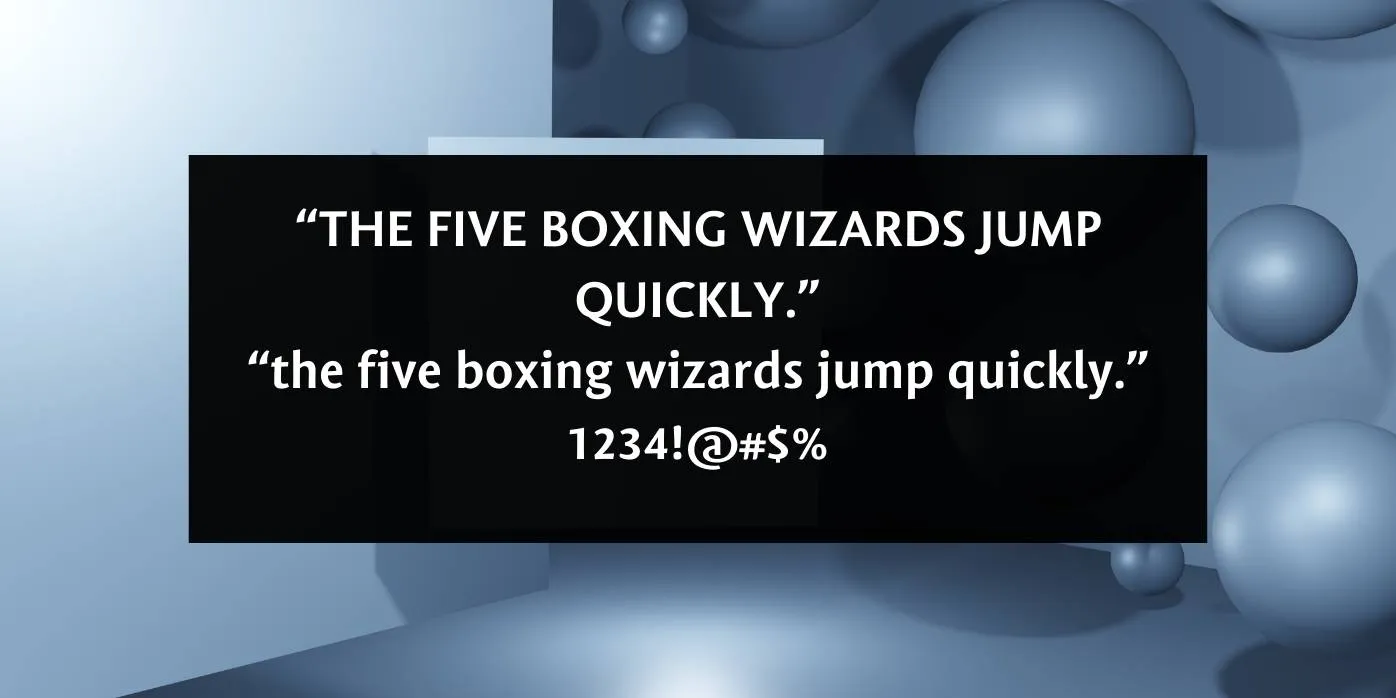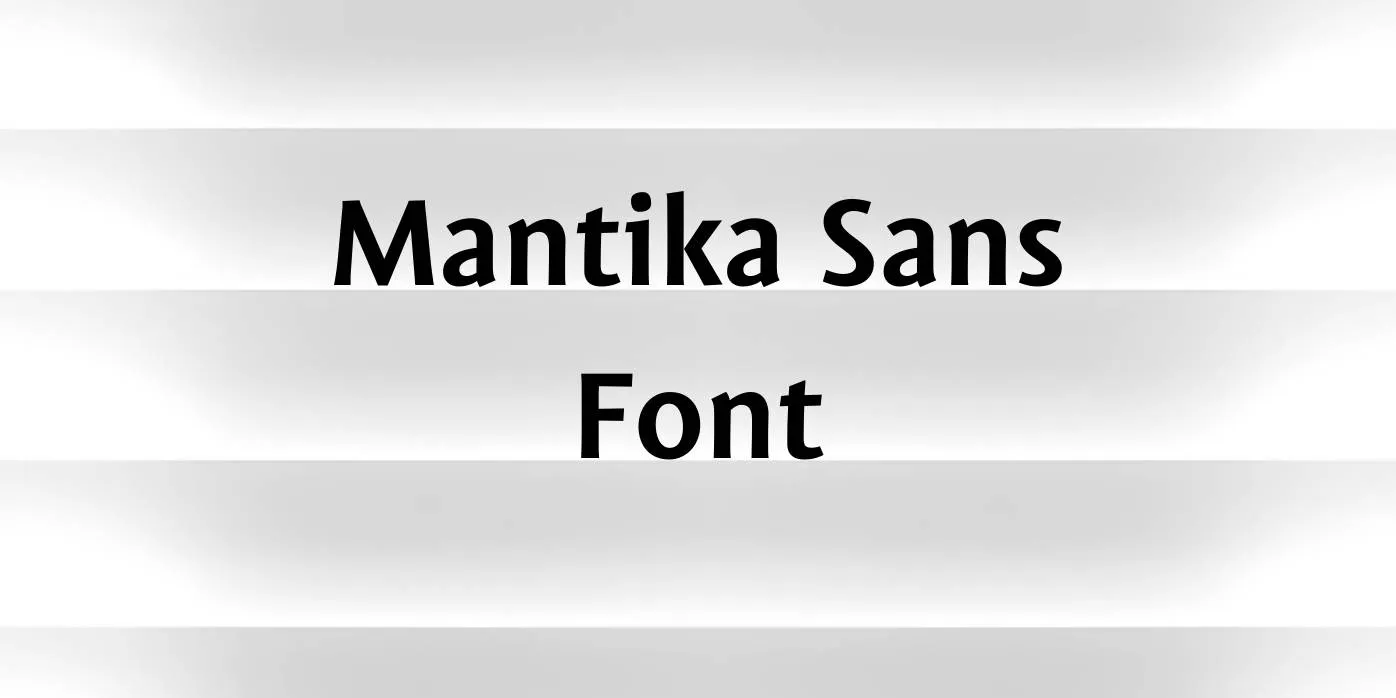
Mantika Sans Font
Here, we present a modern typeface known as Mantika Sans Font. This typeface belongs to the category of the sans serif family. It was developed by Jurgen Weltin. The aim of developing this typeface was to create a modern and clean font.
This stylish font is a great choice for both web and print designs. It is perfect for headlines, logos, and quotes. This font come in two styles- regular and italic. Each style contains six different weights- light, regular, medium, bold, black, and extra black.
Another similar font which is pretendo font is perfect for different designs. It has well defined copy-and-paste function. This makes a total of 12 different characters that you can use in your designs. This awesome font includes a Latin character set with support for multiple languages.